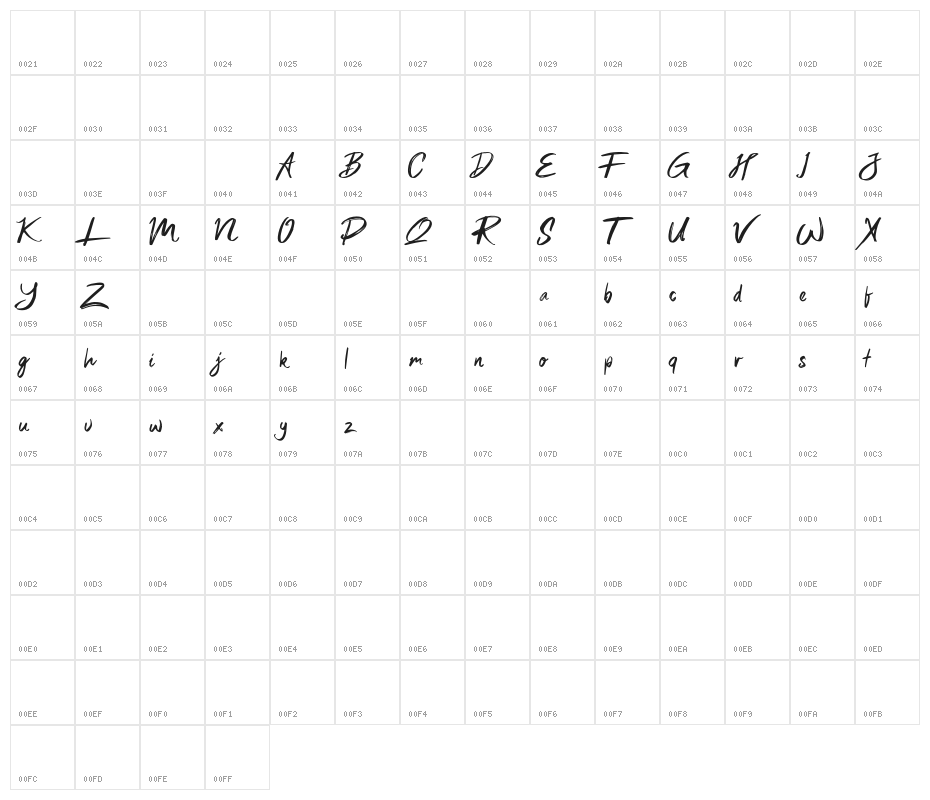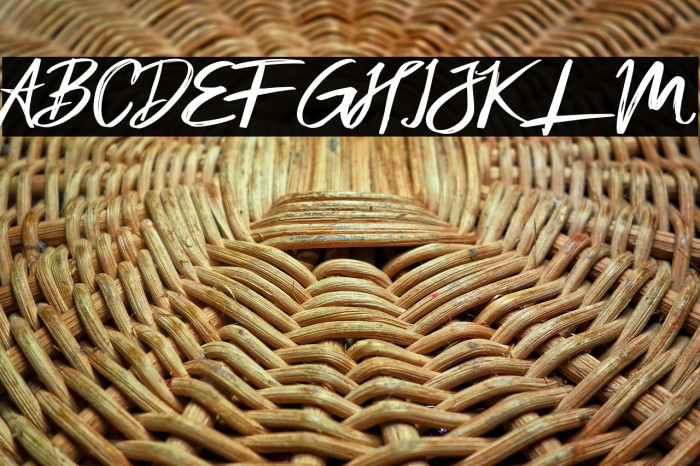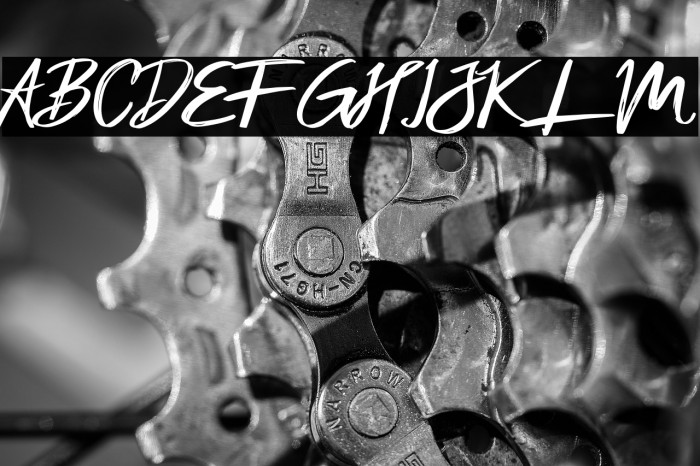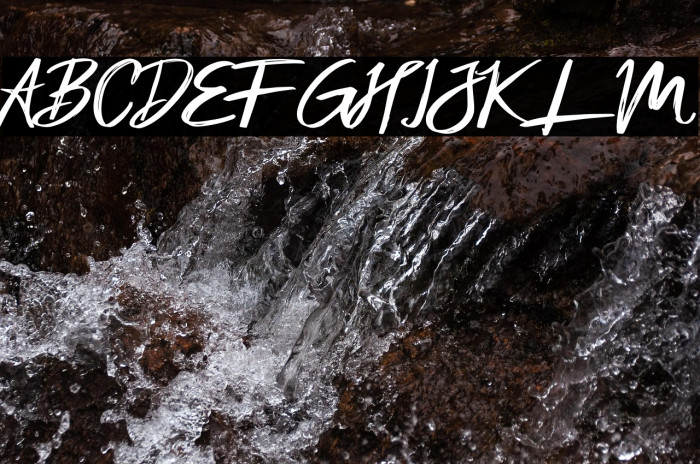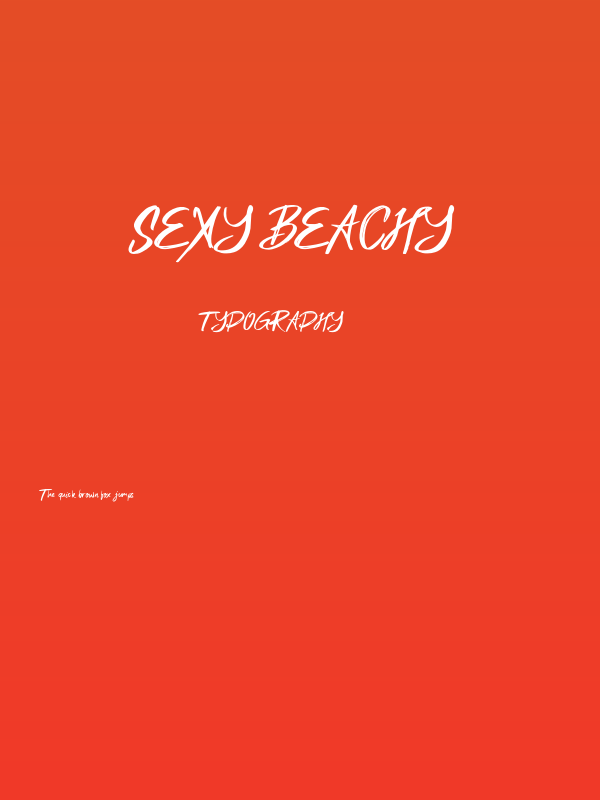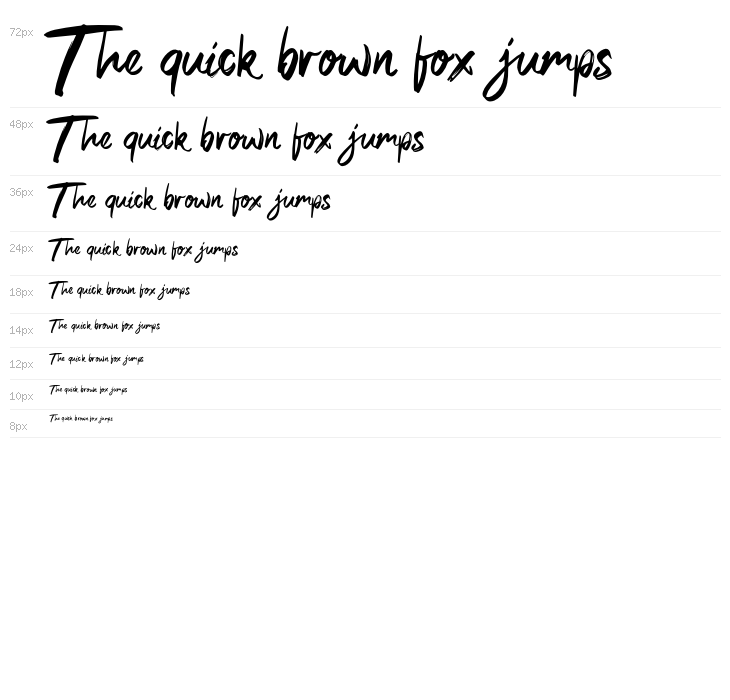
Sexy Beachy Font
Sexy Beachy Description
This font exudes a casual and relaxed vibe, reminiscent of a breezy beach day. Its script style features fluid, flowing strokes that mimic the natural motion of handwriting. The letters are slightly slanted, adding to the informal and approachable feel. The uppercase characters are bold and expressive, while the lowercase letters maintain a consistent rhythm, enhancing readability. The overall design is playful yet elegant, making it suitable for projects that require a touch of personality and warmth. The font's unique charm lies in its ability to convey both sophistication and a laid-back attitude, making it versatile for various creative applications.
| Overall Style | Casual, Elegant |
| Use Case | Logos, Invitations, Social Media |
| Proposed Projects | Ideal for beach-themed invitations, casual branding, social media graphics, and lifestyle blogs. |